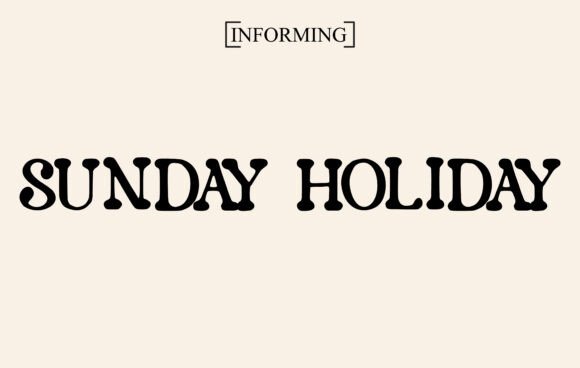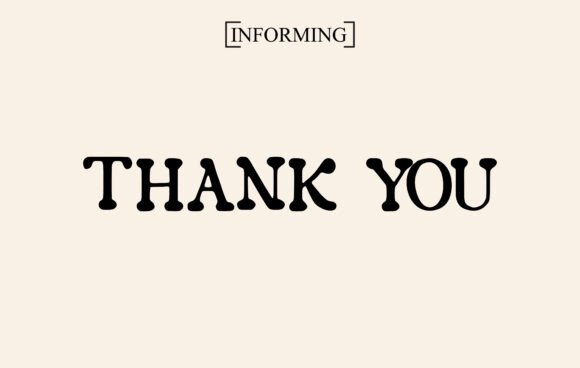
Discover the Elegance of Cloudbloom Font: Elevate Your Designs to New Heights
In the world of typography, a font can make all the difference in bringing your creative visions to life. If you’re on the hunt for a typeface that combines elegance, legibility, and versatility, look no further than the Cloudbloom Font. This exquisite font is designed to be a true favorite among designers and crafters, offering the potential to take your projects to the highest level of sophistication and style.
Legibility and Versatility: The Hallmarks of Cloudbloom Font
One of the standout features of Cloudbloom Font is its exceptional legibility. Whether you’re using it for a title or as body text, this font ensures that your message is conveyed with clarity and precision. Its clean lines and well-balanced design make it a joy to read, while its unique character set adds a touch of personality to any project.
The versatility of Cloudbloom Font is another one of its major strengths. This font is not limited to a single use case; rather, it can be seamlessly integrated into a wide range of design projects. From magazine headlines and t-shirt designs to social media graphics, branding materials, wedding invitations, and greeting cards, Cloudbloom Font proves to be the perfect companion for any creative endeavor.
Endless Design Possibilities with Cloudbloom Font
With Cloudbloom Font at your disposal, the possibilities are virtually endless. Here are just a few ideas to get you started:
- Magazine Headlines: Make a bold statement with Cloudbloom Font as the centerpiece of your magazine’s cover or feature spreads.
- T-Shirt Designs: Add a touch of elegance and sophistication to your apparel designs with this versatile font.
- Social Media Graphics: Elevate your social media presence with eye-catching graphics that showcase the beauty of Cloudbloom Font.
- Branding Materials: Establish a strong brand identity with Cloudbloom Font, perfect for logos, business cards, and letterheads.
- Wedding Invitations: Set the tone for a memorable wedding celebration with beautifully designed invitations featuring Cloudbloom Font.
- Greeting Cards: Add a personal touch to your greeting cards with this lovely font, suitable for any occasion.
Why Choose Cloudbloom Font?
So, what sets Cloudbloom Font apart from other typefaces? Here are a few compelling reasons to choose this font for your next project:
- Unique Character: Cloudbloom Font boasts a distinct character set that adds a touch of personality to any design.
- Exceptional Legibility: This font is designed to be easy to read, making it perfect for both titles and body text.
- Versatility: Cloudbloom Font can be used across a wide range of design projects, from digital to print.
- Elegance: With its clean lines and balanced design, Cloudbloom Font brings an air of sophistication to any project.
In conclusion, Cloudbloom Font is a game-changer for designers and crafters looking to elevate their creative projects. Its unique blend of elegance, legibility, and versatility makes it an indispensable tool in any designer’s arsenal. Whether you’re working on a magazine headline, a t-shirt design, or a wedding invitation, Cloudbloom Font is sure to bring your vision to life in style. So why wait? Discover the beauty and potential of Cloudbloom Font today and take your designs to new heights!